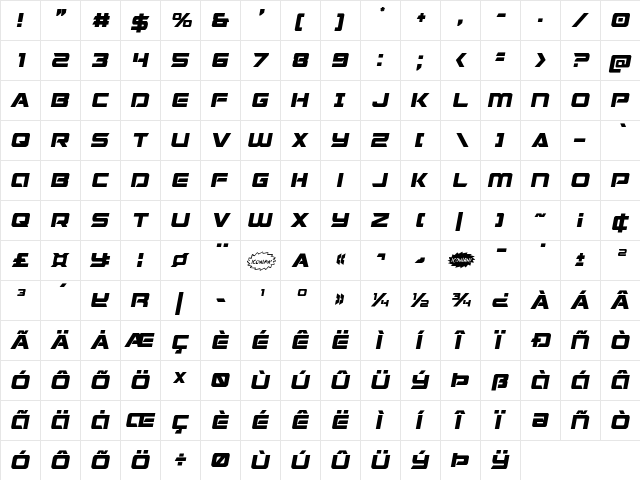
Starduster Semi-Italic Semi-Italic
Design Context for Starduster Semi-Italic Typeface
Starduster Semi-Italic is a composed and adaptable typeface that performs quietly and consistently across a wide range of design contexts. Its italic angle brings a sense of urgency and motion to the letterforms.
Pro Tip: Use Starduster Semi-Italic for emphasis, pull quotes, and subheadings where its slanted energy can add rhythm to the layout.